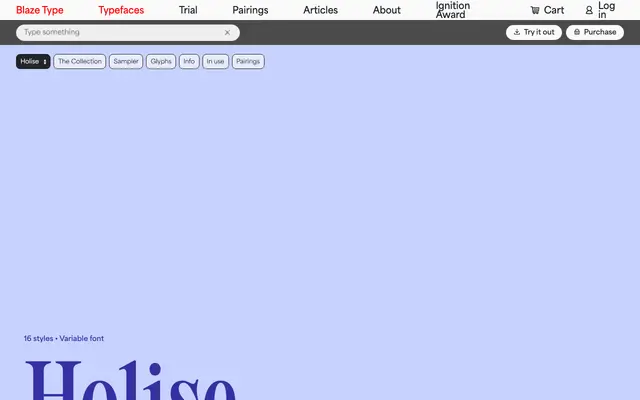
Holise
A condensed display serif by Ines Davodeau with sharpened, spiced serif detailing suited to titles and large-scale text.
Designed by Ines Davodeau and released in 2024, Holise runs across eight weights from Thin to Black with matching italics, all available as a variable font. Its condensed proportions and distinctive serif details give it a character that sits somewhere between contemporary and vintage, lending itself to editorial headlines, poster work and identity. The glyph set covers Latin European languages with broad diacritic support.
Holise is a condensed serif with distinctive detailing on the serifs, positioning it as a display-oriented typeface. Its mix of sharp, spiced serif details and condensed proportions places it in the display serif category rather than a conventional text serif.